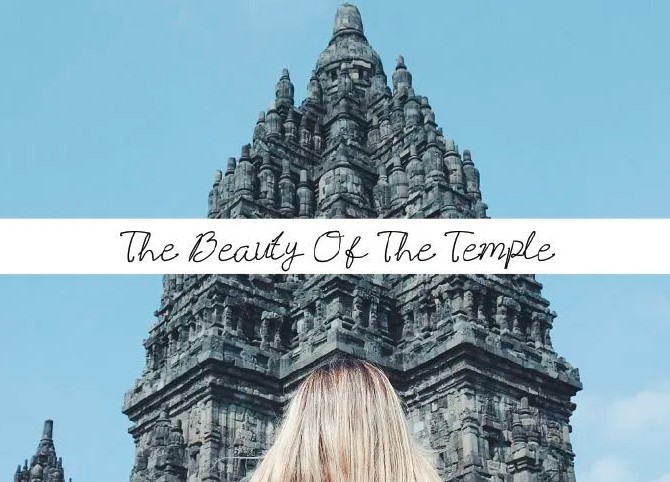
Check out our new and trendy signature font, Best Signature Font, which features premium characteristics and a handwritten style. You can download this top-notch typeface for free on our website.
The font has amazing readable characters that can easily be viewed in all types and sizes of screens. You can use this font with the combination and pairing of adelle font for making more attractive and stylish designs without doing lots of hard works.
You can also view the preview of the font in the image below that we are attached here for you ease to get an idea about this character’s set and stylistic sets.
Now, the time is came to view the sample the of great typeface. Below, we shared an image that contains the glyphs and characters of this amazing font which creates best designs in Adobe photoshop and Adobe Illustrator.